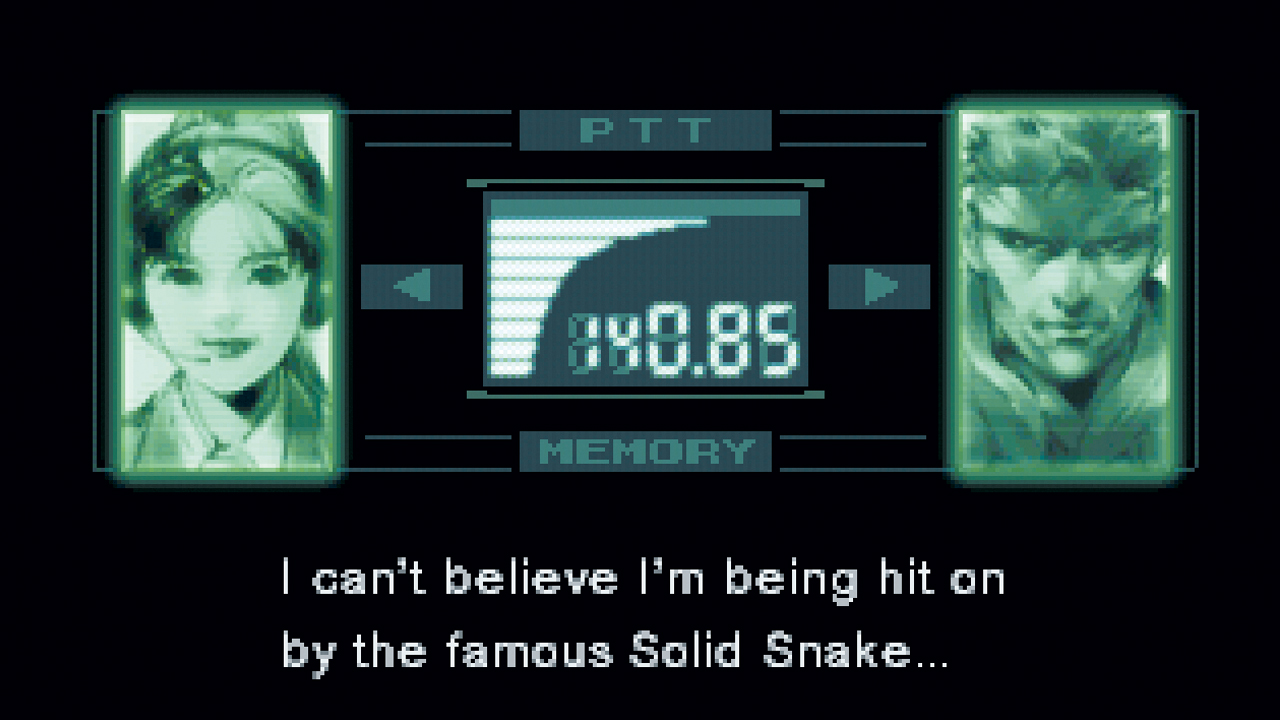
Metal Gear Solid Codec Font
Metal Gear Solid Codec Font. The codec subtitles resemble very much helvetica black to me. Click on the third line that asks to pick an image and choose an image for the person you want to include in the codec.
So, to write the metal gear solid 4 logo, type 'metal.gear,solid4'. Metal gear solid 2 truetype personal use. Thought other people might like them.
Does Anyone Know What Font It Uses Through Out The Game?
Metal gear solid codec/dialogue font. I'm interested in the font used in the original metal gear solid diaglogue and codec. Metal gear solid has 4 styles and 100% free license
It’s The First Mgs Game To Do So As Far As I Know.
Respond, Please. Recreation Of The Font From Konami's Classic Metal Gear (1987) On The Nes.